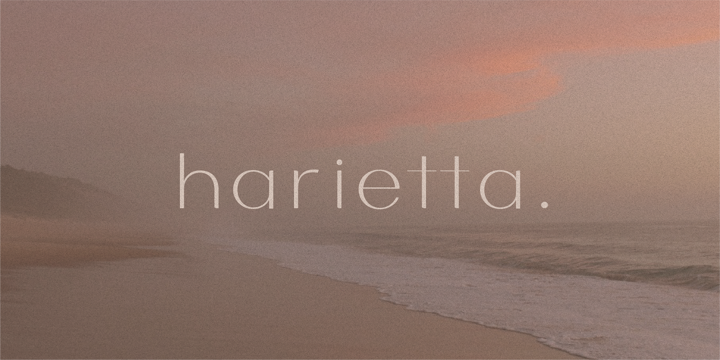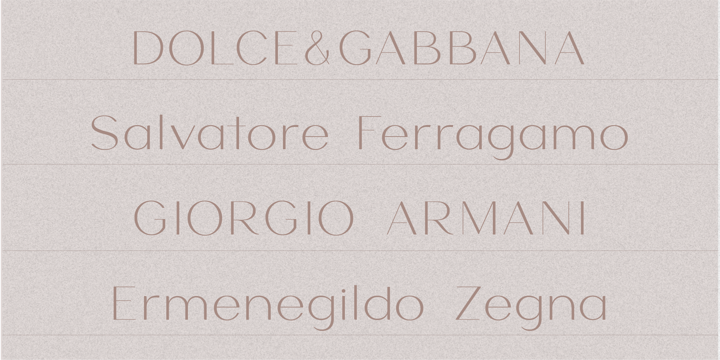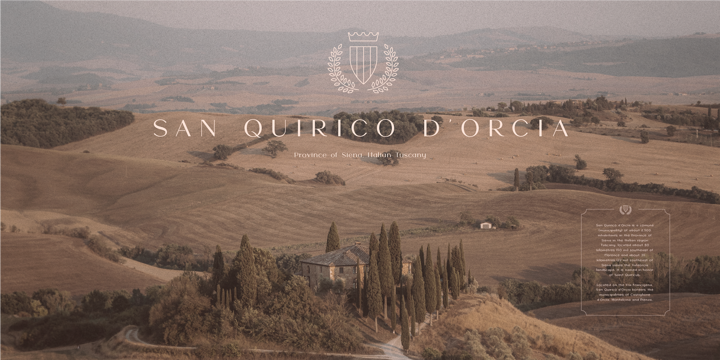
HV Harietta Font
HV HariettaHarietta – a semi-geometric, clean sans serif with a retro, humanist and elegant touch.. Specially designed for simple, clean, humanist projects. The font is perfectly suitable for creating elegant, clean, retro design such as logo, packaging, social media, and more.